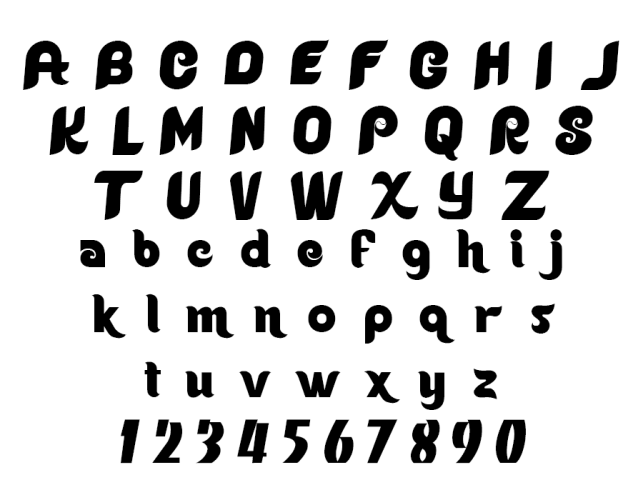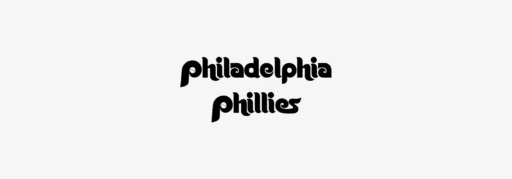
Philadelphia Phillies Font
Philadelphia Phillies Font is based on the iconic lettering used in the official logo of the Major League Baseball team. Its rounded, flowing script gives a sporty and vintage feel that stands out in jerseys, posters, and team branding. Designers use this font to bring energy, tradition, and authenticity to sports-themed projects.
Where Philadelphia Phillies Font works best
Philadelphia Phillies Font is built for size: event posters, hero headlines and billboard-style layouts.
High contrast display type like Philadelphia Phillies Font reads instantly in thumbnails and motion graphics.
What is Philadelphia Phillies Font good for?